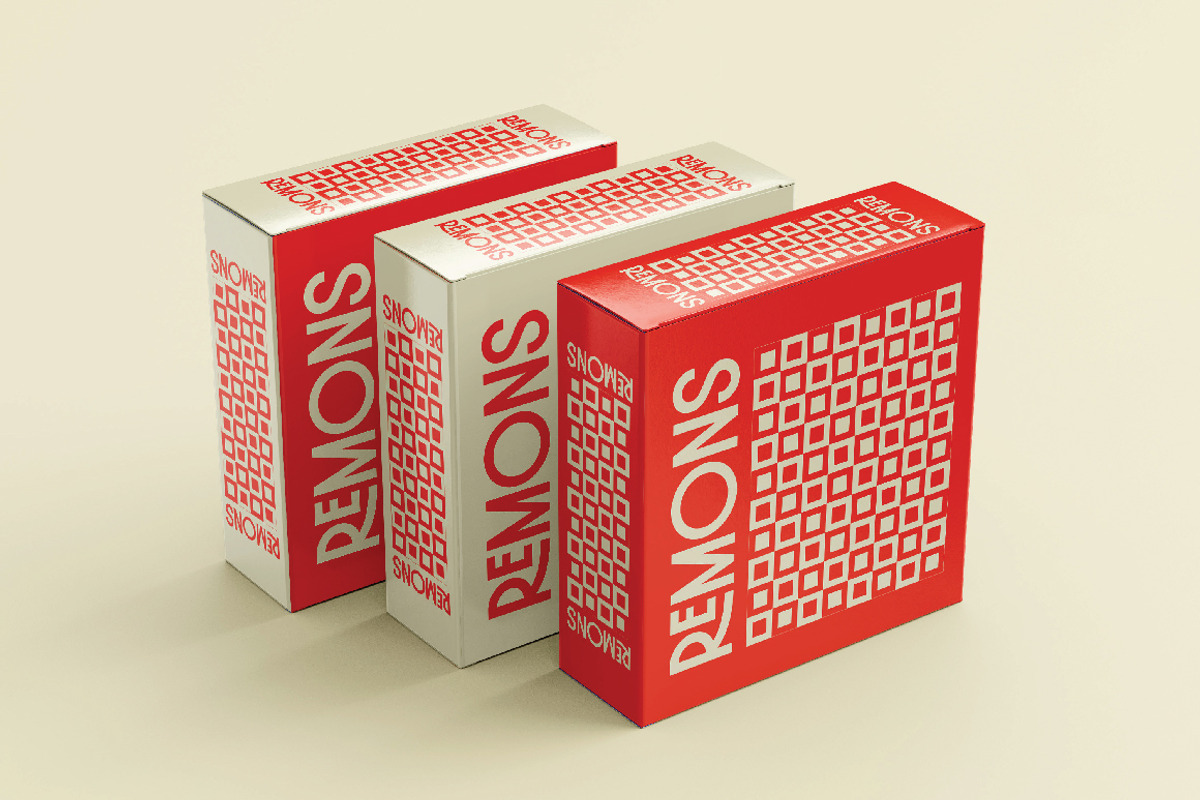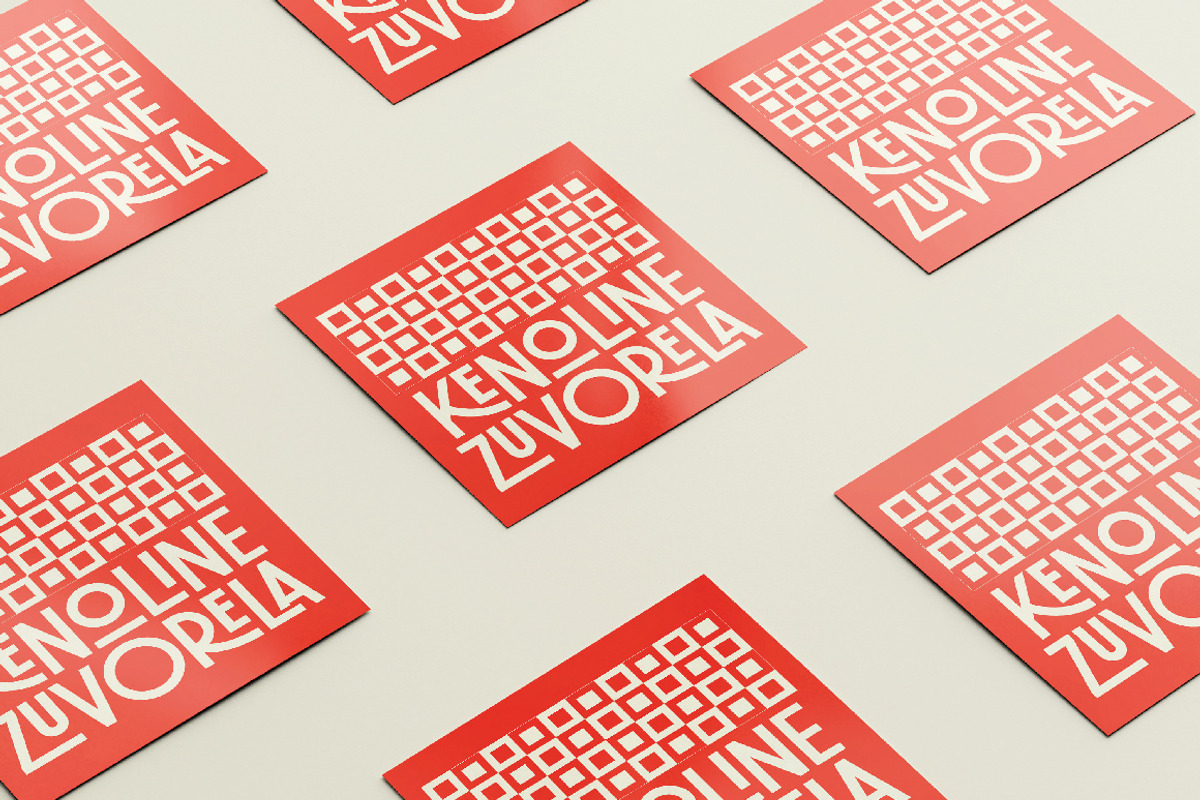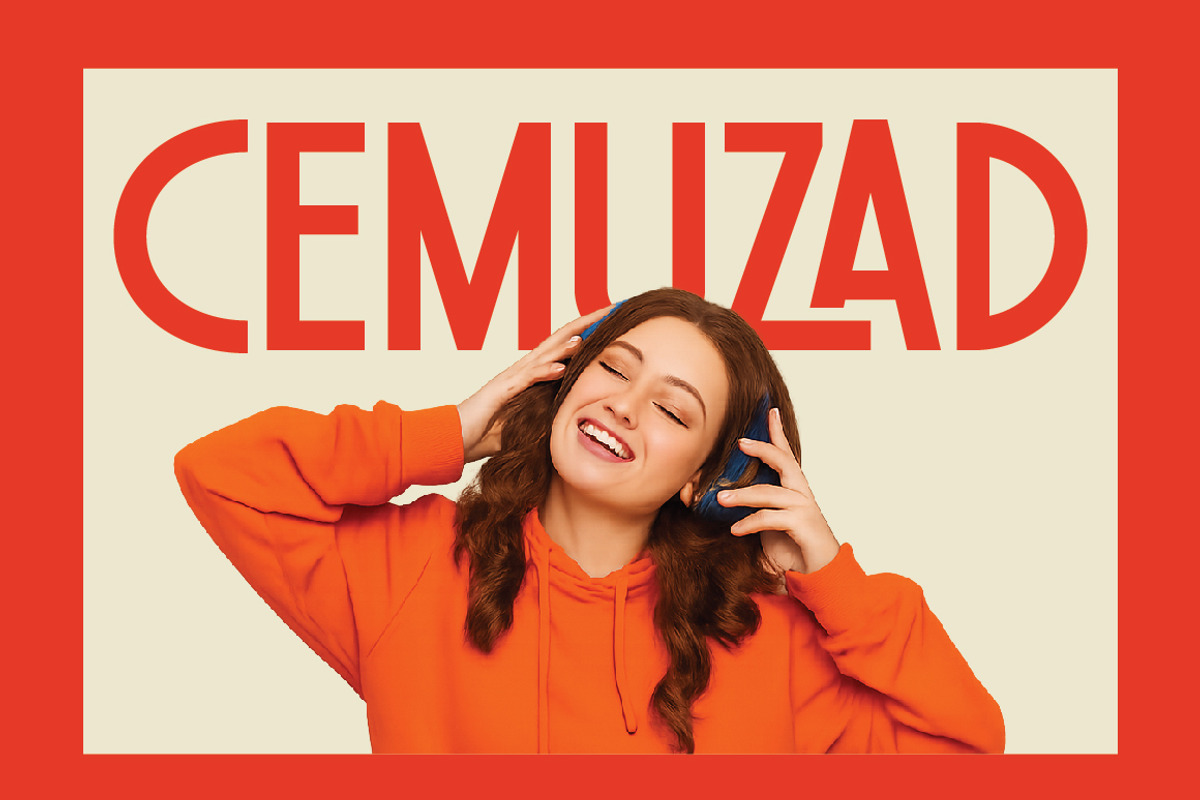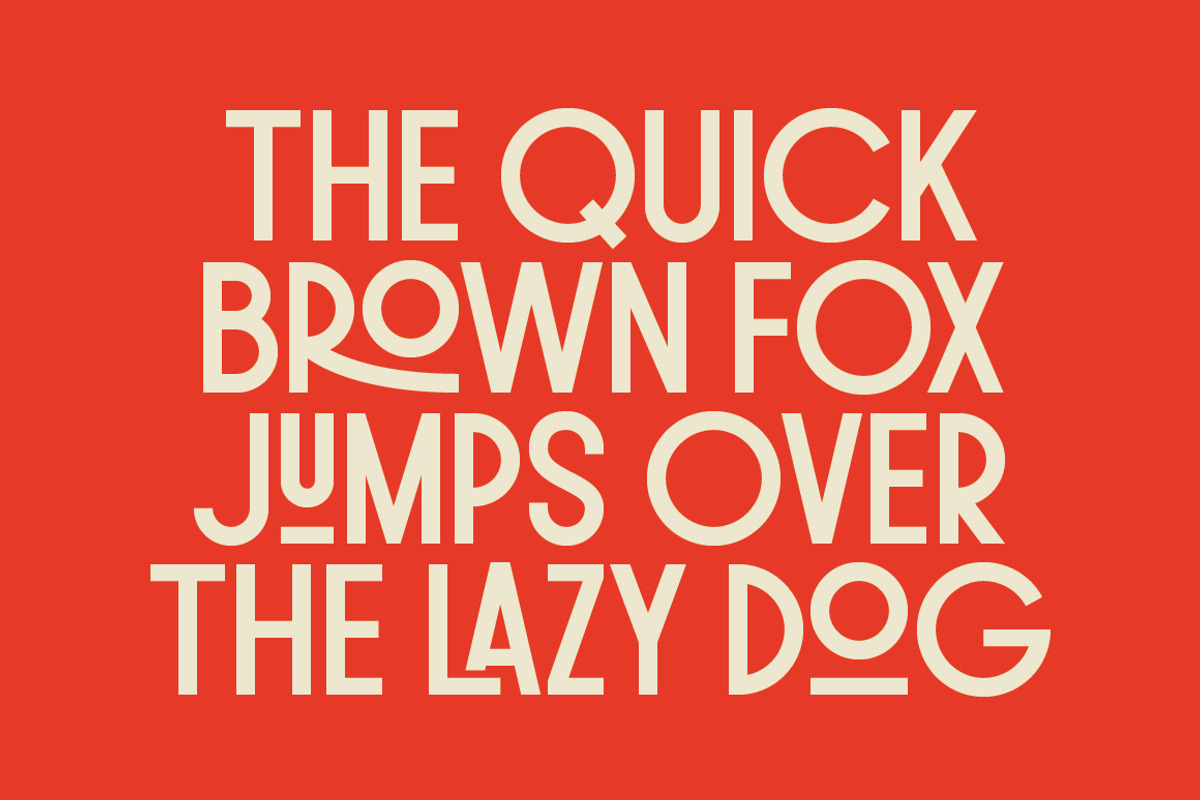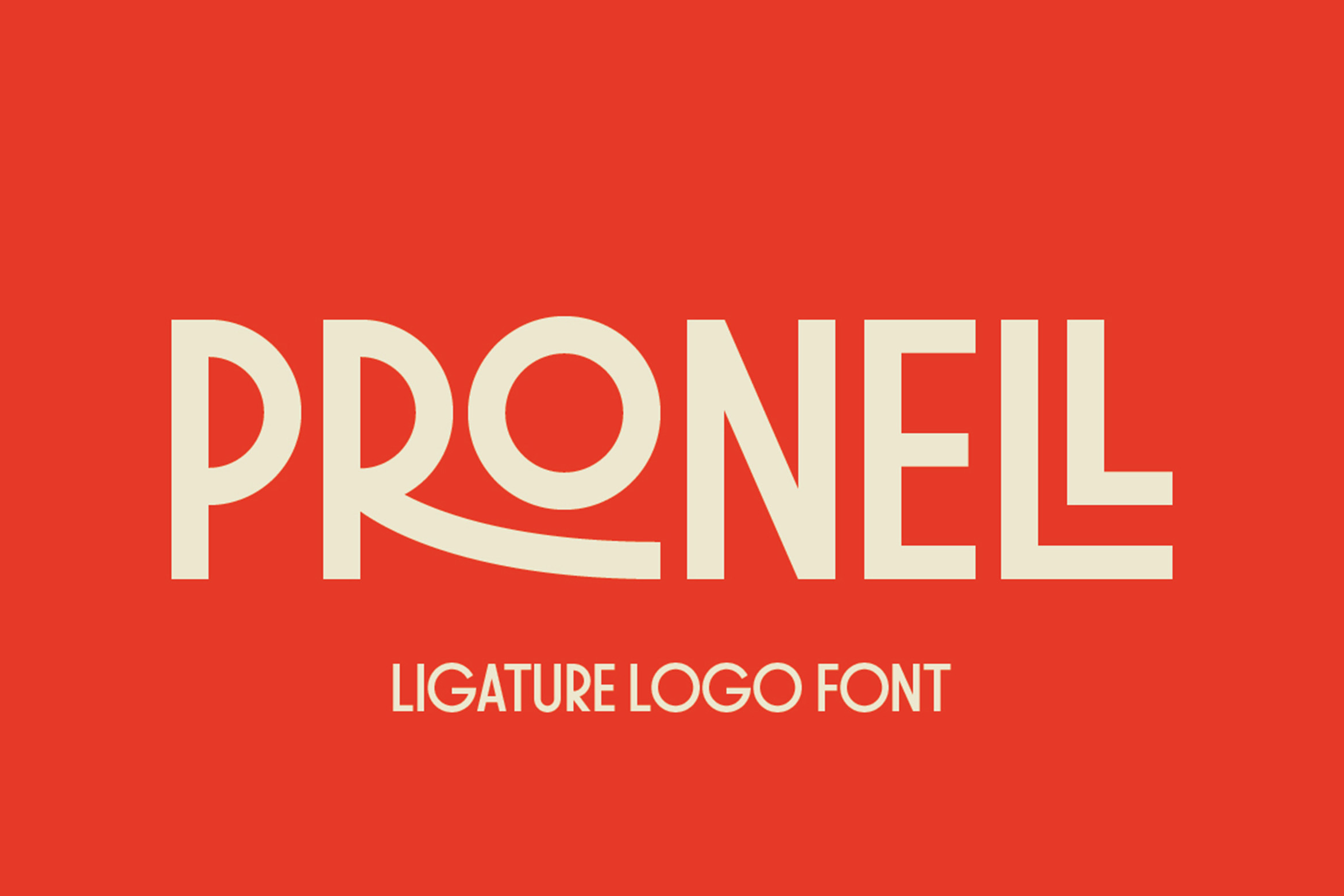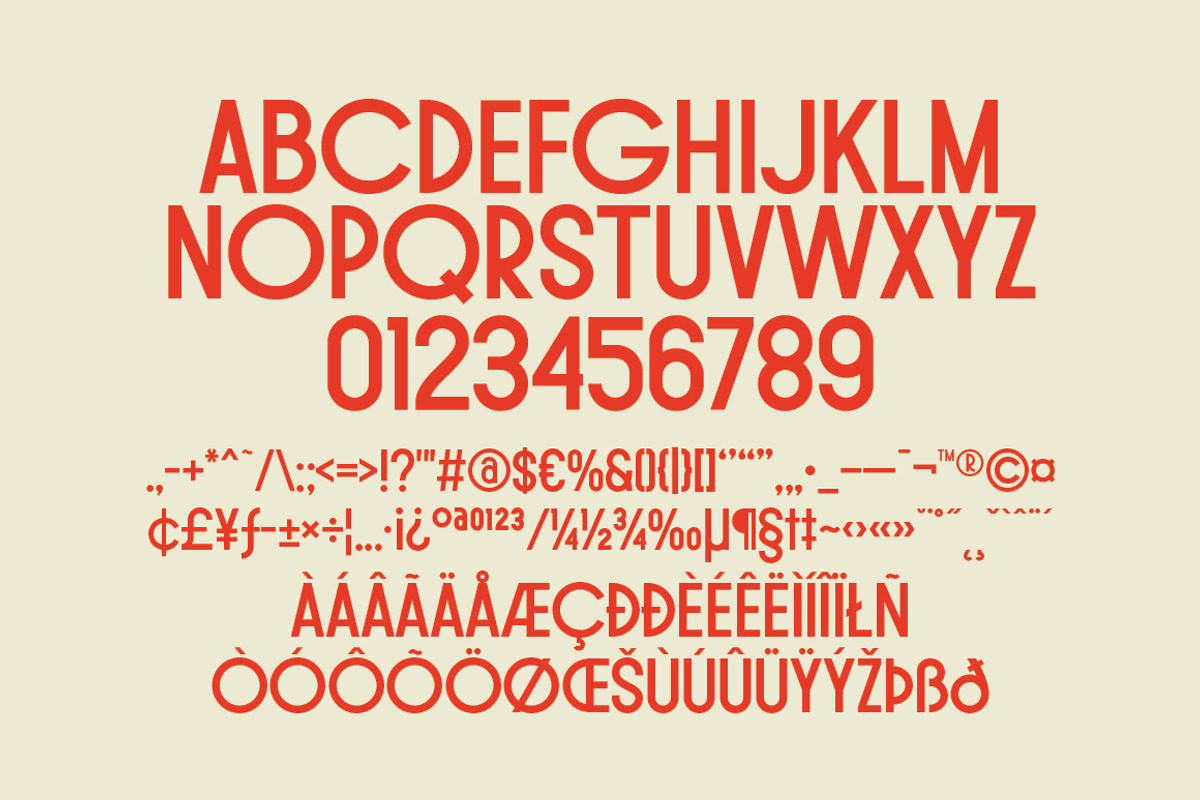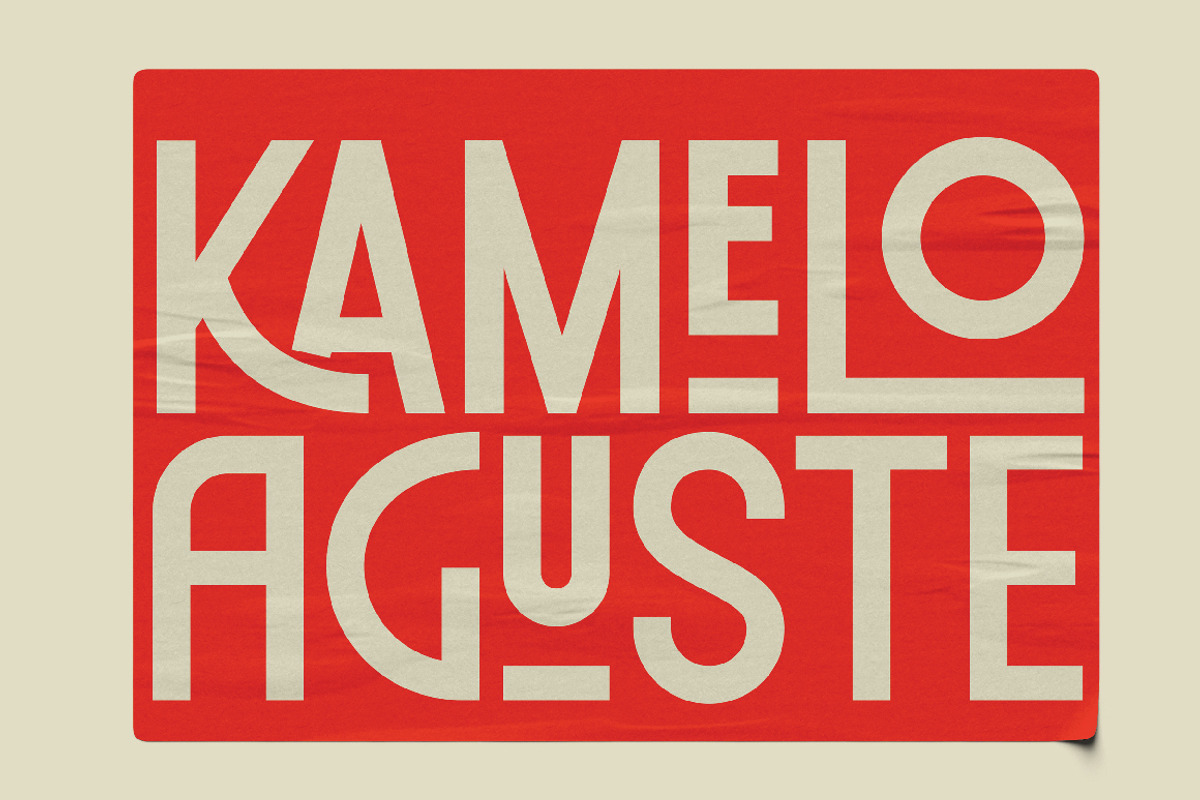
Pronell – Modern Retro Display Font
Pronell is a unique display font that blends retro vibes with modern geometric shapes, making it perfect for posters, branding, packaging, logos, headlines, and social media graphics. With clean lines, bold energy, and playful ligatures, Pronell gives your design a distinctive and stylish look.
- All Caps, Numerals & Punctuation
- 21 Ligatures & 14 Stylistic Alternates